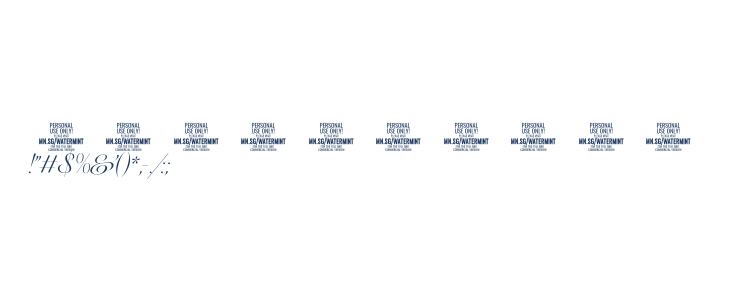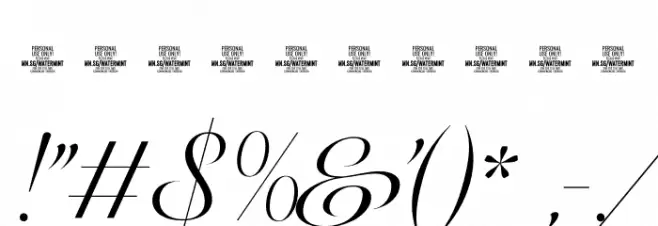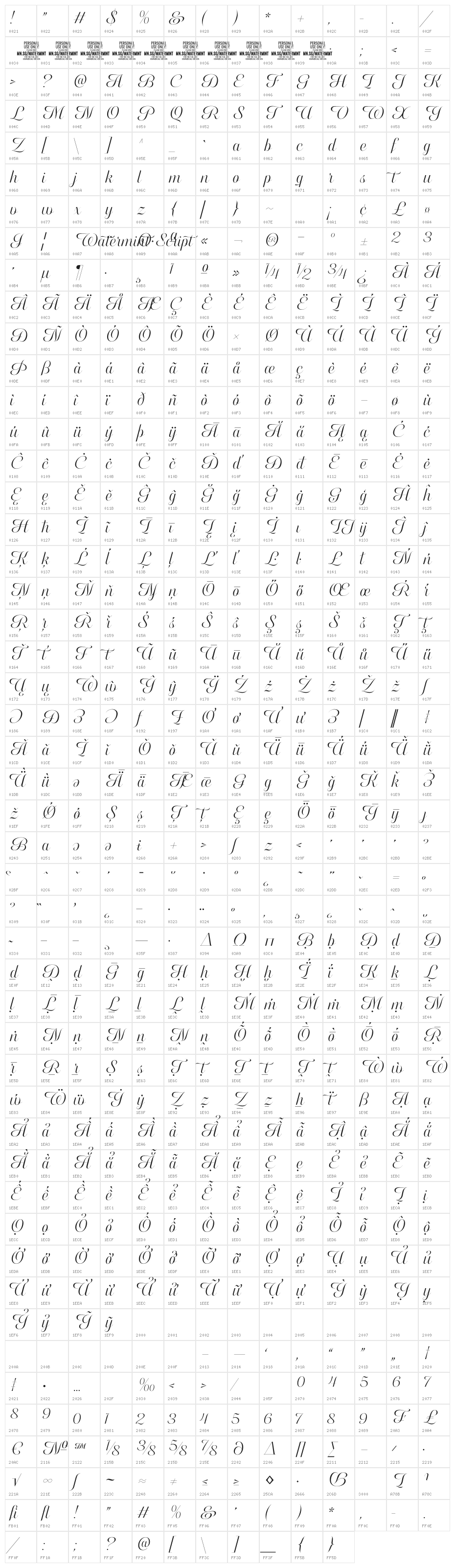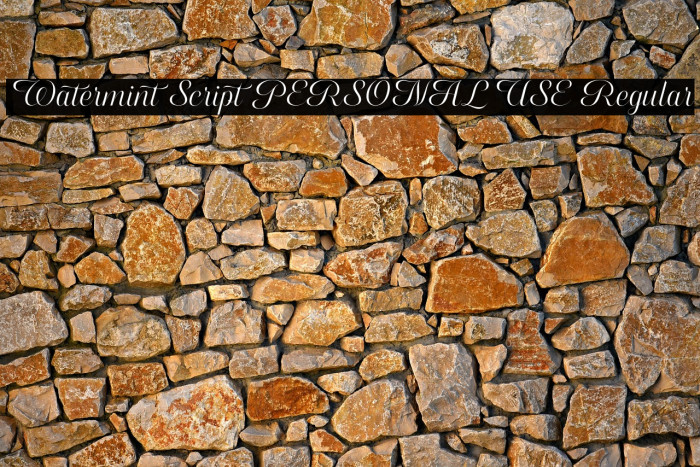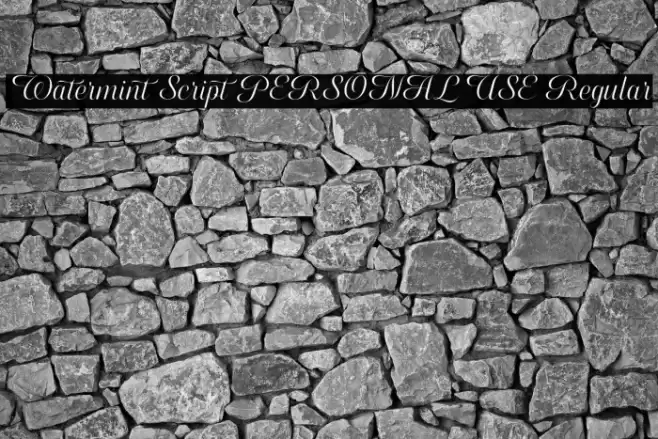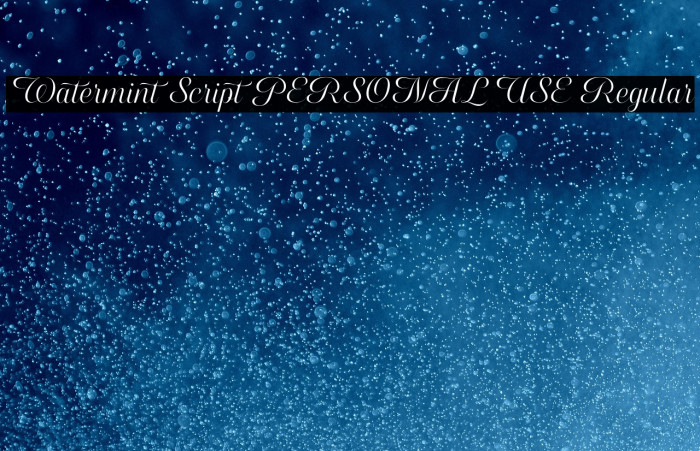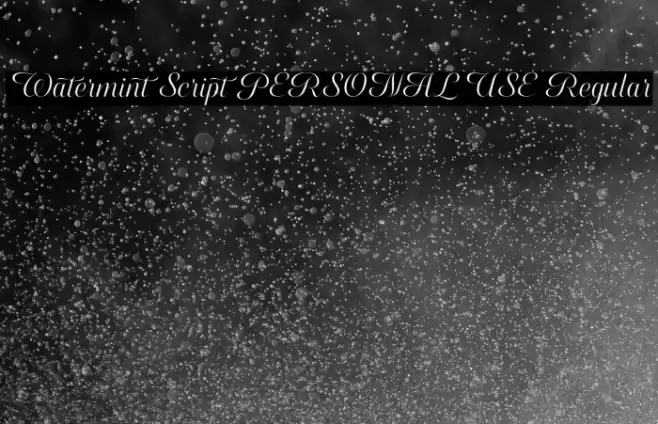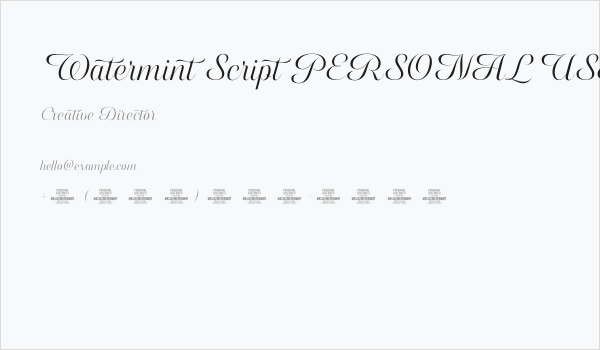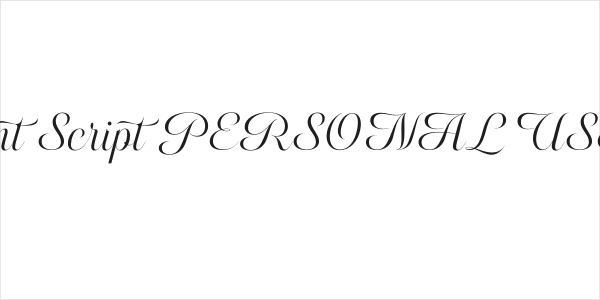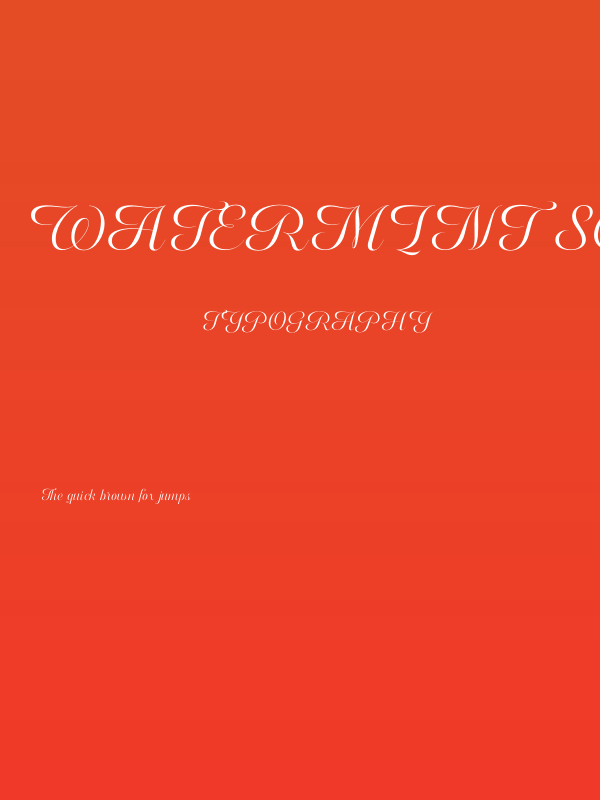
Watermint Script PERSONAL USE Regular Font
Watermint Script PERSONAL USE Regular Description
This elegant script font features a flowing, cursive style with a sophisticated flair. The uppercase letters are ornate and sweeping, while the lowercase letters maintain a graceful continuity. The font exhibits a high contrast between thick and thin strokes, enhancing its refined appearance. The characters are slightly condensed, adding to the font's sleek and stylish look. This script is ideal for creating a sense of elegance and luxury, making it suitable for formal invitations, branding, and decorative purposes.
| Use Case | Invitations, Branding, Decorative |
| Proposed Projects | Ideal for wedding invitations, luxury branding, greeting cards, and decorative signage. |